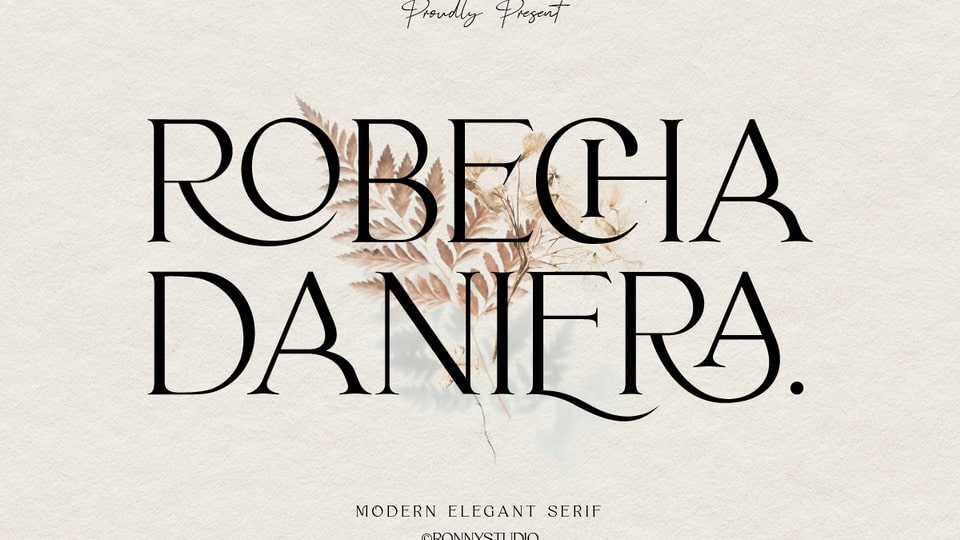
Download Robecha Daniera font, a luxurious and elegant serif typeface. Robecha Daniera font is impressive and features a clean and modern look, it will easily match a variety of creations that require a different touch.